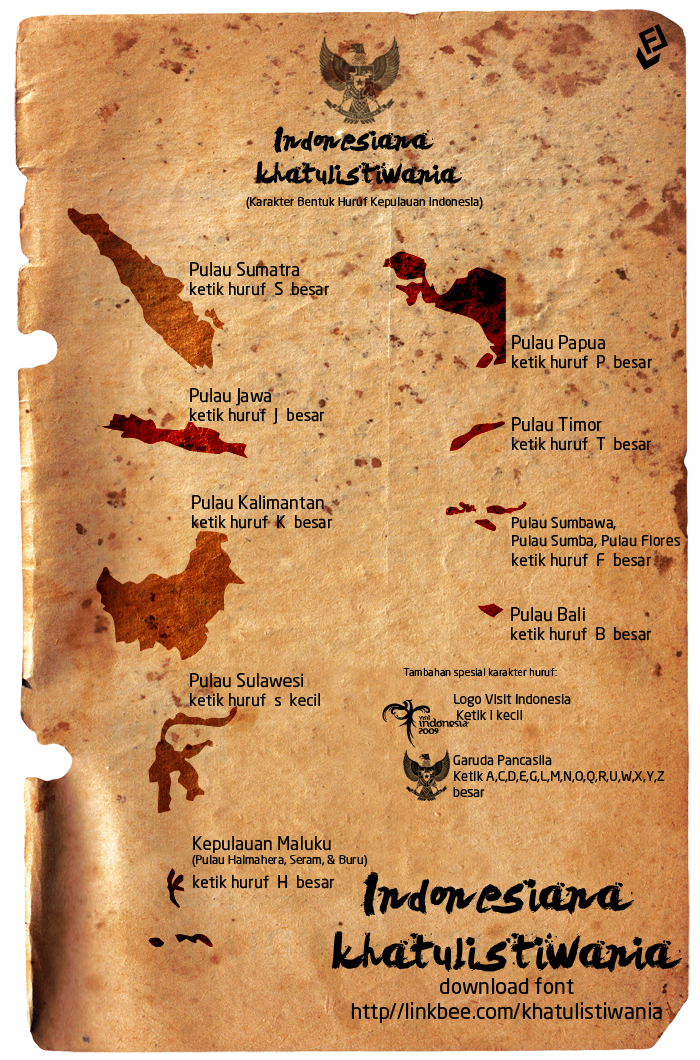
Indonesiana Khatulistiwania Font
FTF Indonesiana Khatulistiwania is Dingbats font all Island in Indonesia, like Sumatra, Borneo, Sulawesi, Papua, BALI, Java, Timor, etc... Enjoy with this Public Domain font from Fizzetica Typefoundry